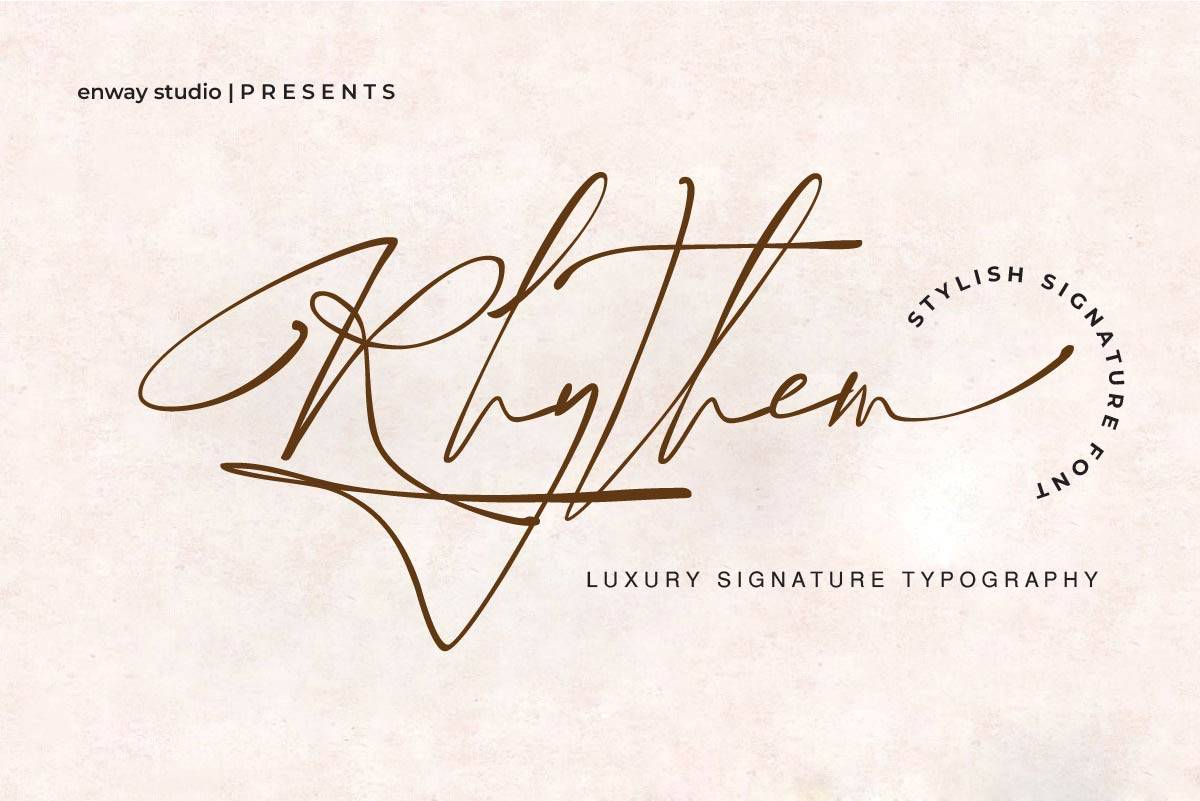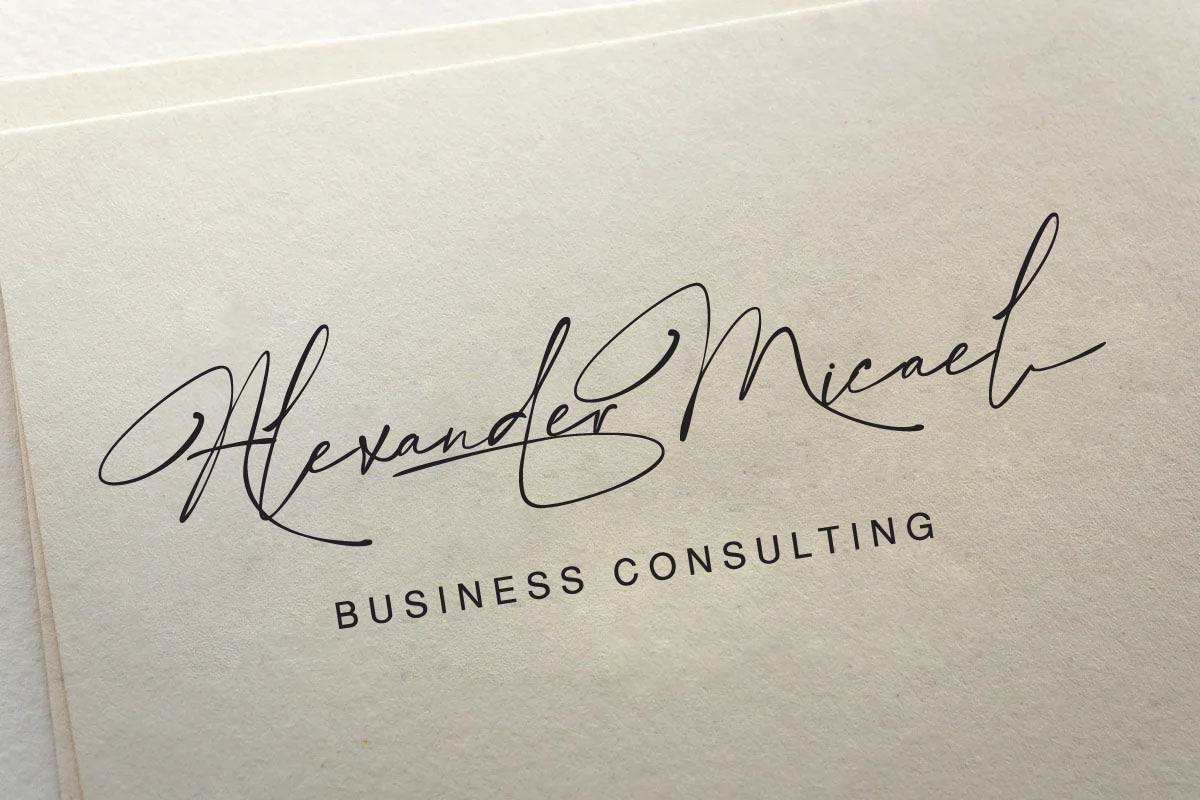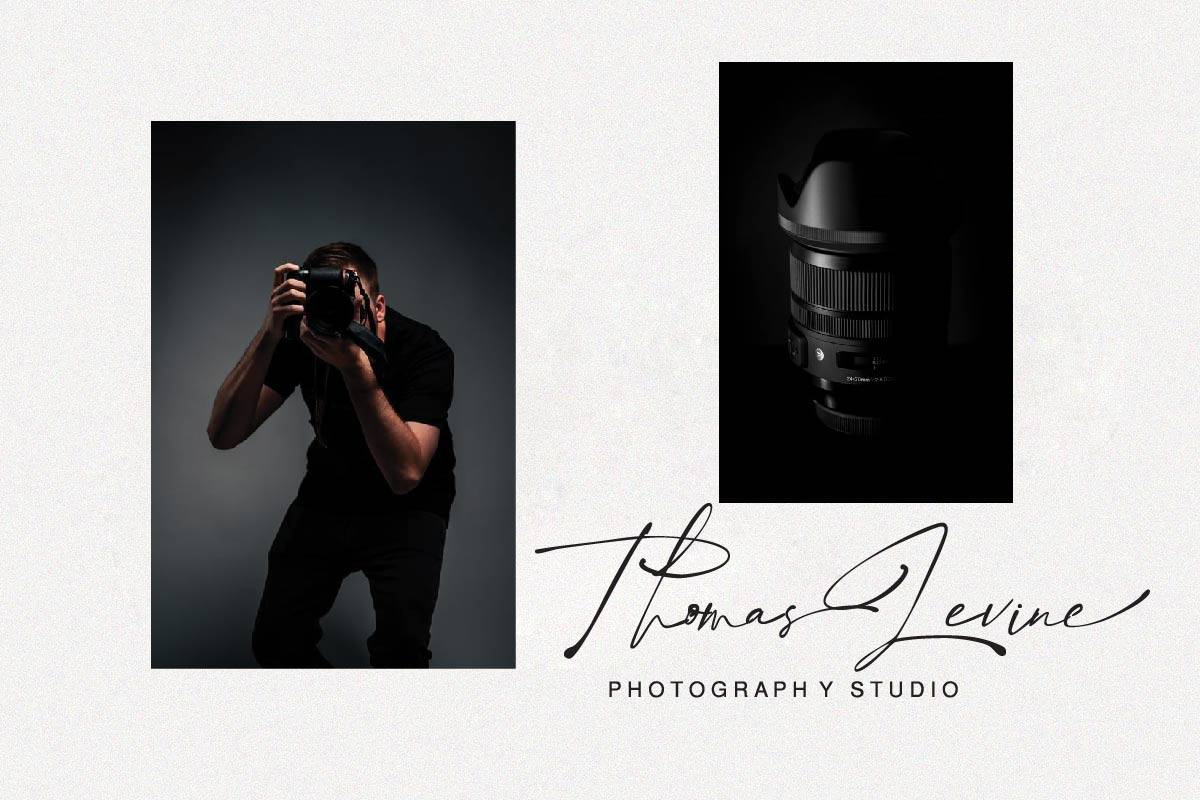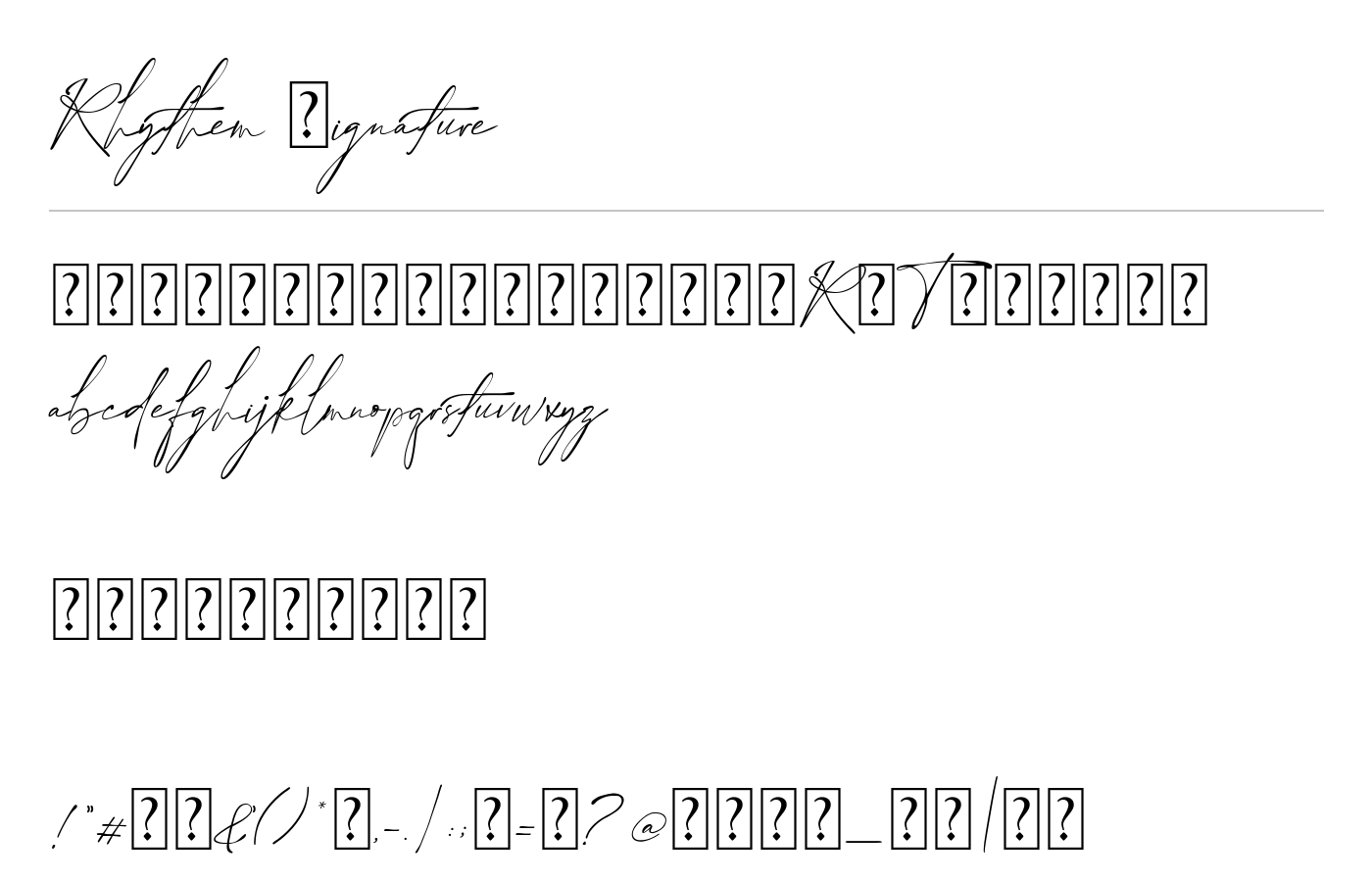
Rhythm Signature is a delicate, handwritten script font with elegant, flowing strokes that mimic natural penmanship. Its thin, airy lines and subtle variations convey a sophisticated and personal touch, making it perfect for stylish logos, wedding invitations, and modern branding that seeks a refined, intimate feel. This font works best in display settings where its graceful character can shine and add a sense of luxury and charm.
Rhythem Signature Font
About Rhythem Signature Font
| Font family | Rhythem Signature Font |
| Designer | Andri Nuryadin © (enway studio) |